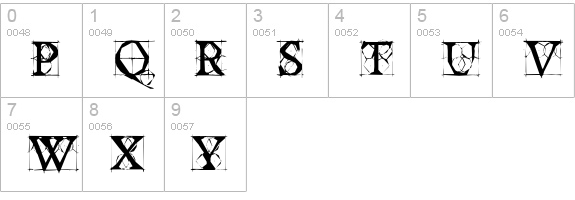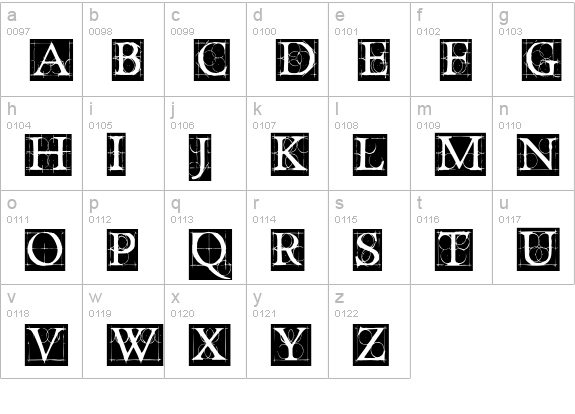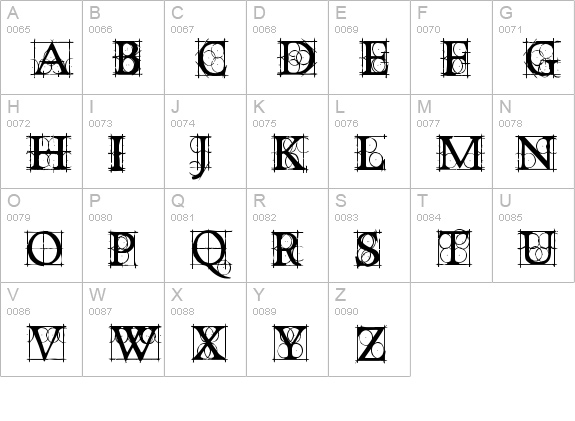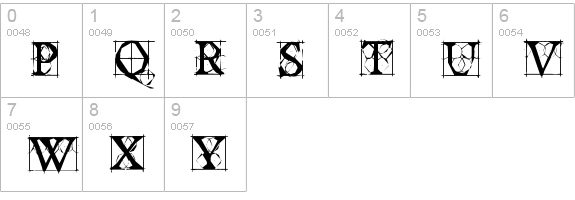
OldConstructedCaps Font Details
OldConstructedCaps font is a vintage-inspired typeface that exudes a sense of nostalgia and elegance. With its unique, handcrafted look, this font is perfect for adding a touch of old-world charm to your designs. The intricate details and ornate flourishes of OldConstructedCaps give it a timeless appeal that is sure to make your projects stand out. Best of all, OldConstructedCaps is available for free download at FontsMarket.com. This means you can easily access this beautiful font and use it in your personal or commercial projects without any cost. Whether you're creating invitations, posters, logos, or anything in between, OldConstructedCaps is a versatile font that will bring a touch of classic sophistication to your work. Download it today and let its vintage charm elevate your designs to the next level.